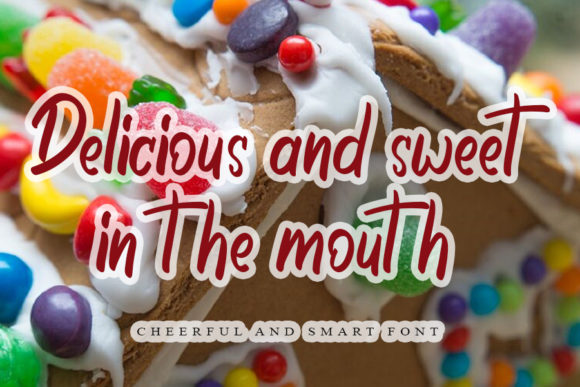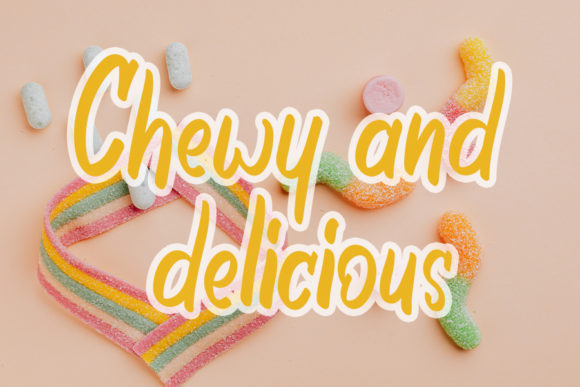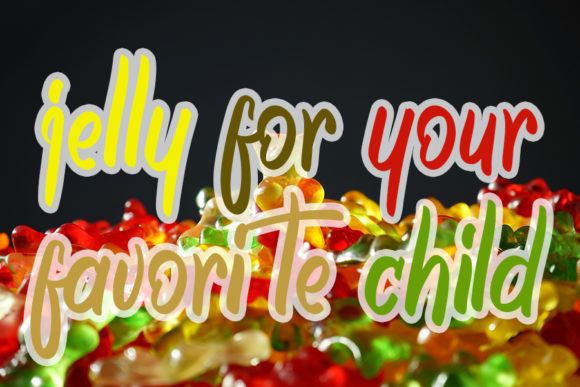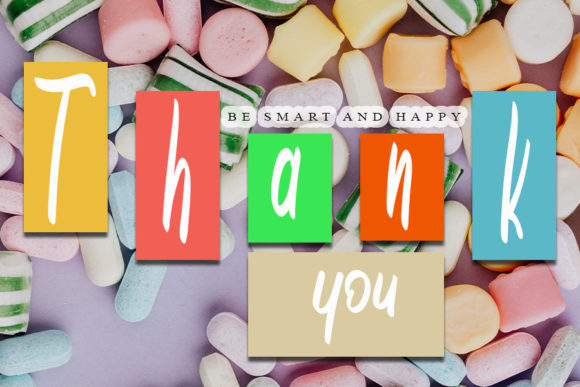
Jelly Drink Font
About Jelly Drink Font
Jelly Drink is a joyful and sweet handwritten font. With thin and gorgeous letters, this font created an amazing and original design, irrespective of your initial idea.